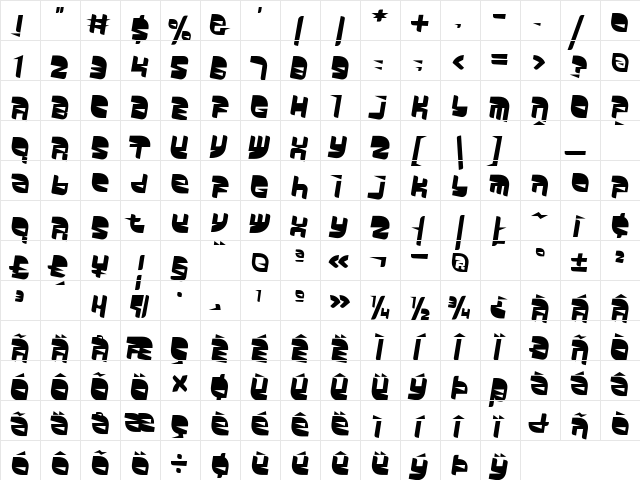
Automatic Regular
Design Context for Automatic Typeface
Automatic is a composed and adaptable typeface that performs quietly and consistently across a wide range of design contexts.